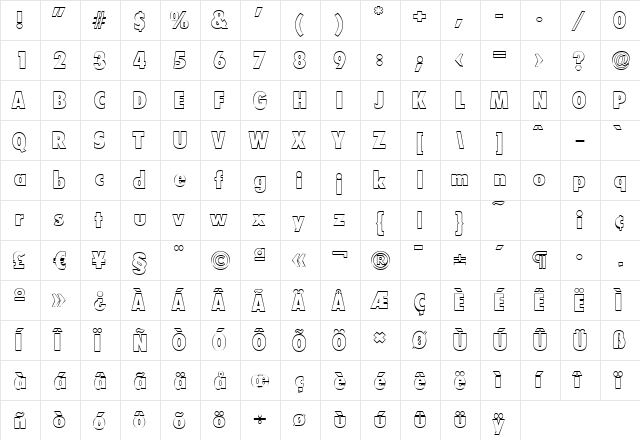
PeterBeckerCondOutline-ExtraBo ld-Regular
Design Context for PeterBeckerCondOutline-ExtraBo Typeface
PeterBeckerCondOutline-ExtraBo brings ornamental detail and strong personality to headlines and identities, where visual impact matters more than quiet functionality.
Font Pairing: Pair with a clean neutral sans-serif for body copy to let PeterBeckerCondOutline-ExtraBo's character lead without overwhelming the composition.
Pro Tip: Use PeterBeckerCondOutline-ExtraBo exclusively at display sizes — it was designed to be seen, not read at length. Let a neutral companion handle body copy.